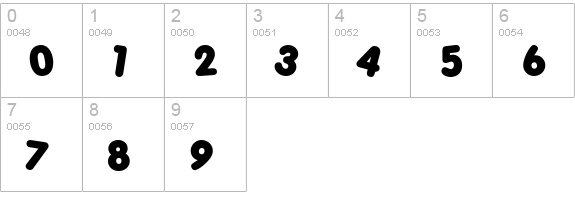
Porky's Font Details
Porky's font is a fun and playful typeface that exudes a lighthearted and whimsical charm. With its quirky and unique design, Porky's is perfect for adding a touch of personality to any project. This font features bold and slightly uneven strokes that give it a hand-drawn look, making it ideal for posters, greeting cards, and children's books. Best of all, Porky's font is completely free to download at FontsMarket.com. So go ahead and unleash your creativity with this delightful and free-spirited font that is sure to make your designs stand out!